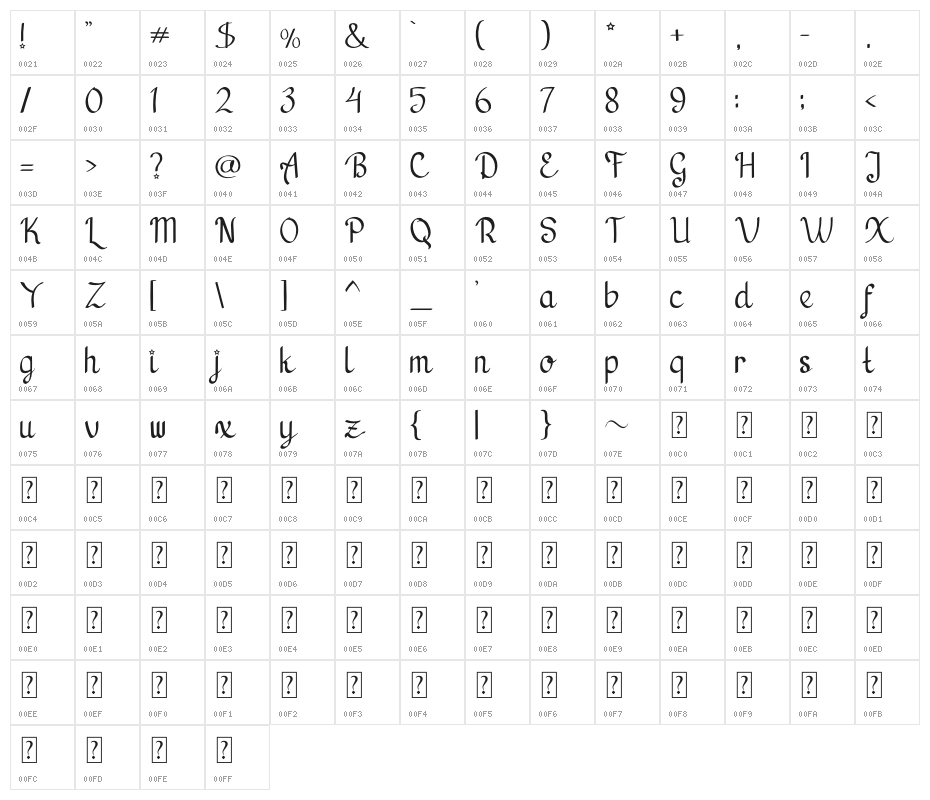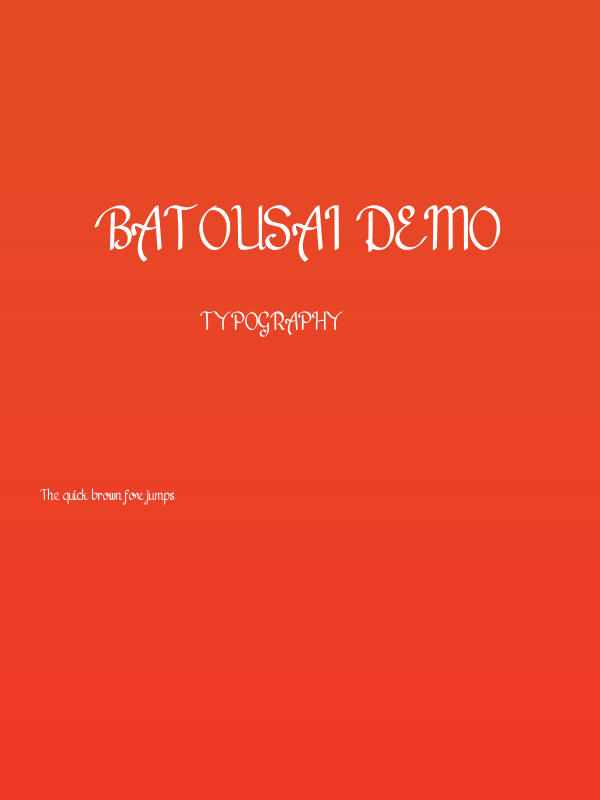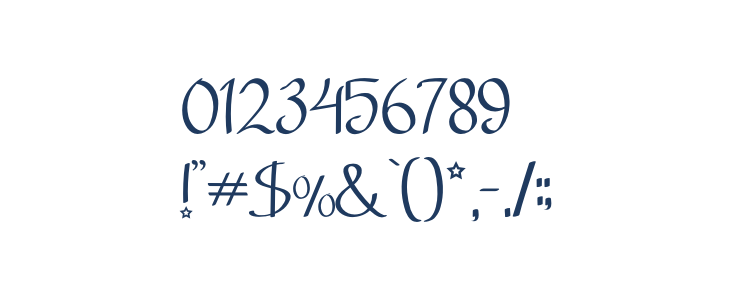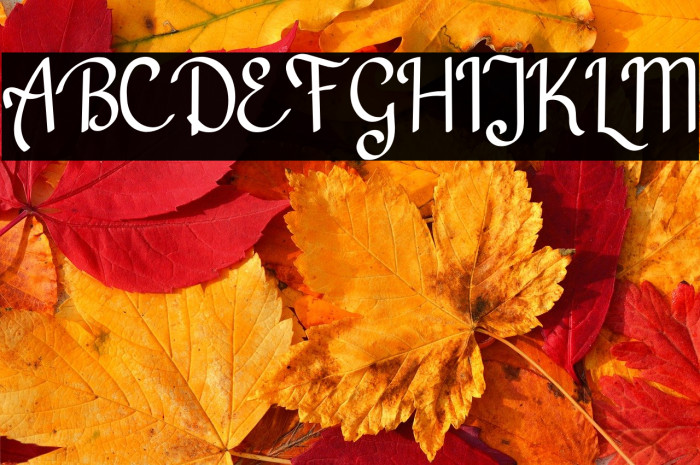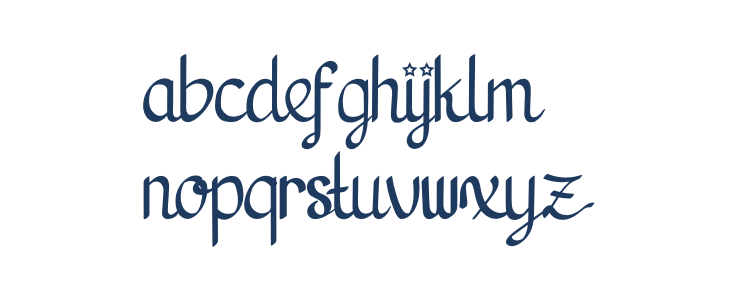
Batousai Demo Font
Batousai Demo Description
This font features a unique blend of elegance and playfulness, characterized by its flowing, cursive-like strokes and decorative elements. The uppercase letters are bold and prominent, with distinctive flourishes that add a touch of sophistication. The lowercase letters maintain a consistent style, with some characters featuring playful star accents. The numerals are clear and legible, with a slight whimsical touch that aligns with the overall aesthetic. Special characters are creatively designed, incorporating stars and unique shapes that enhance the font's decorative appeal. This font is ideal for projects that require a touch of elegance and creativity, making it suitable for invitations, branding, and artistic designs.
| Use Case | Headlines, Logos, Invitations |
| Proposed Projects | Ideal for wedding invitations, branding, artistic designs, and creative projects. |